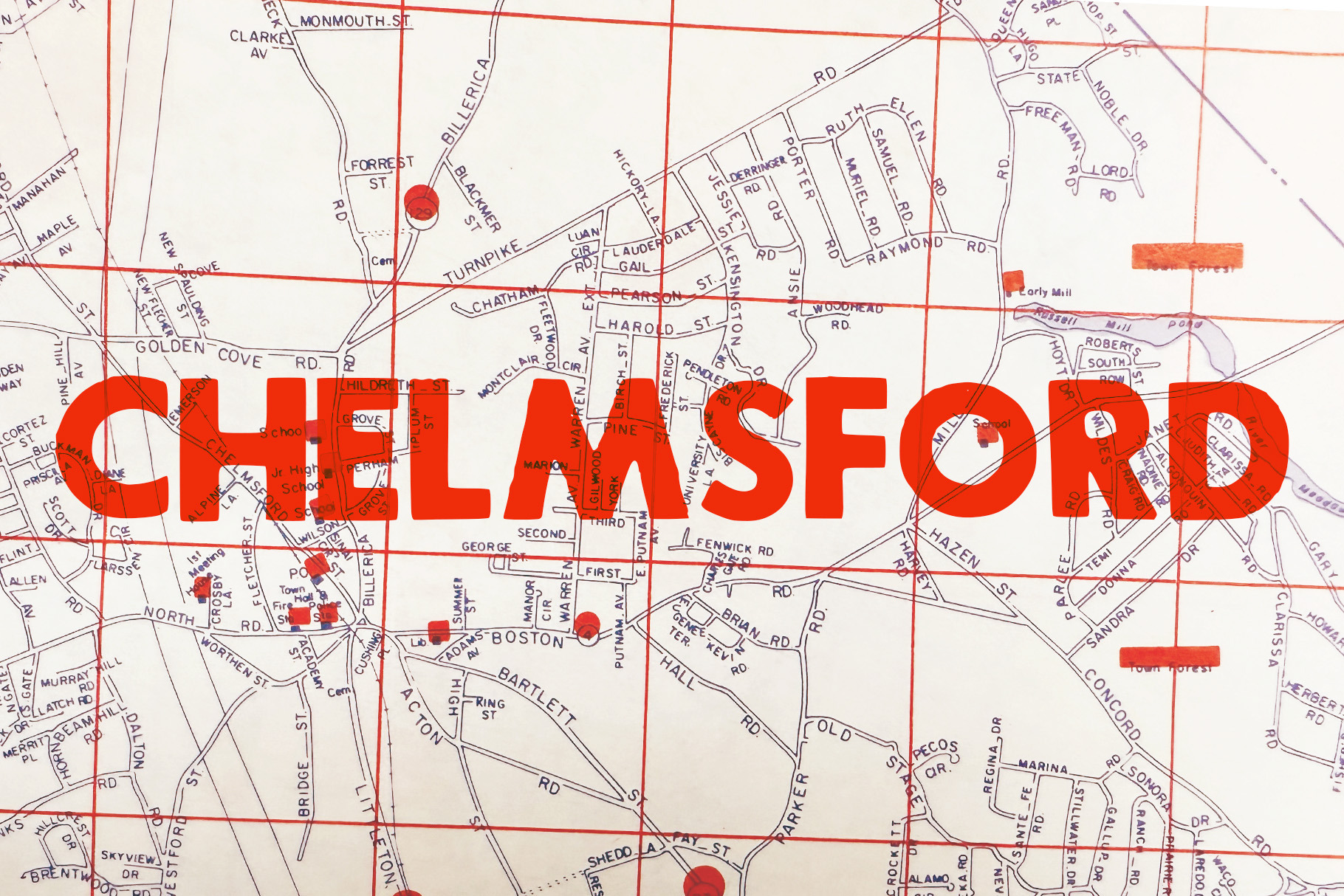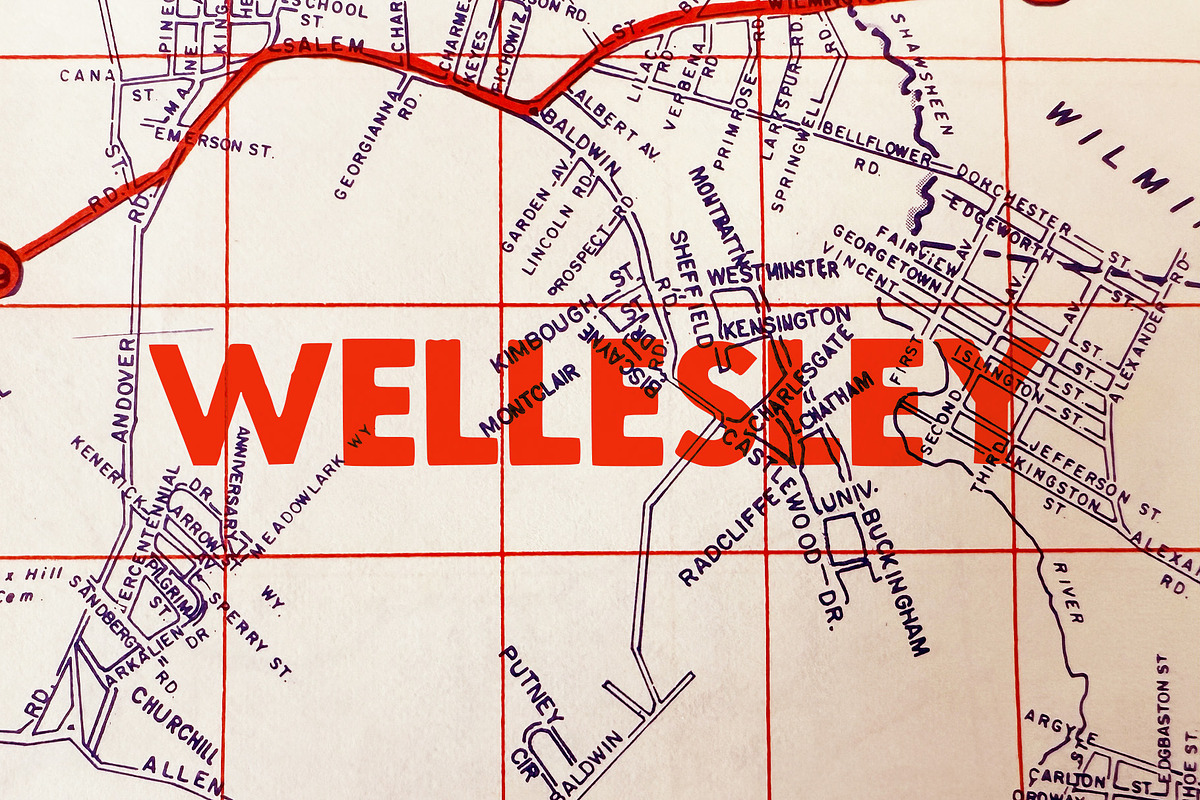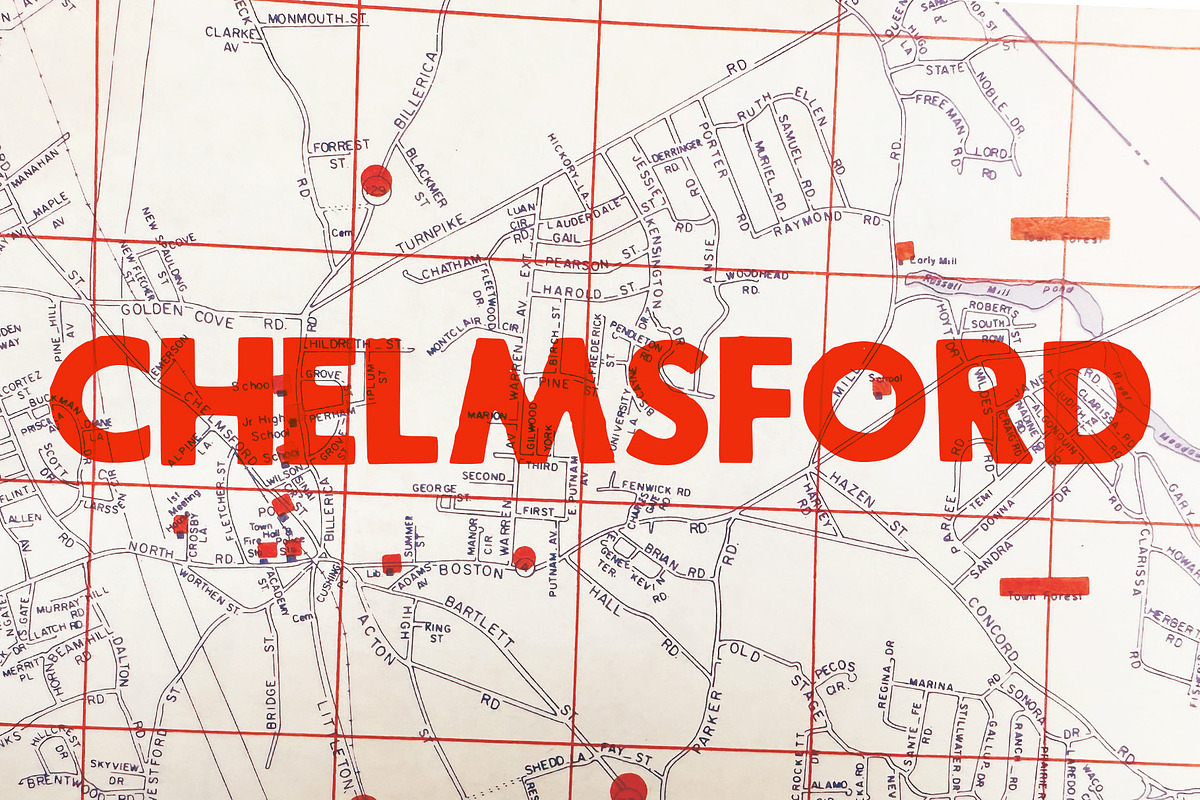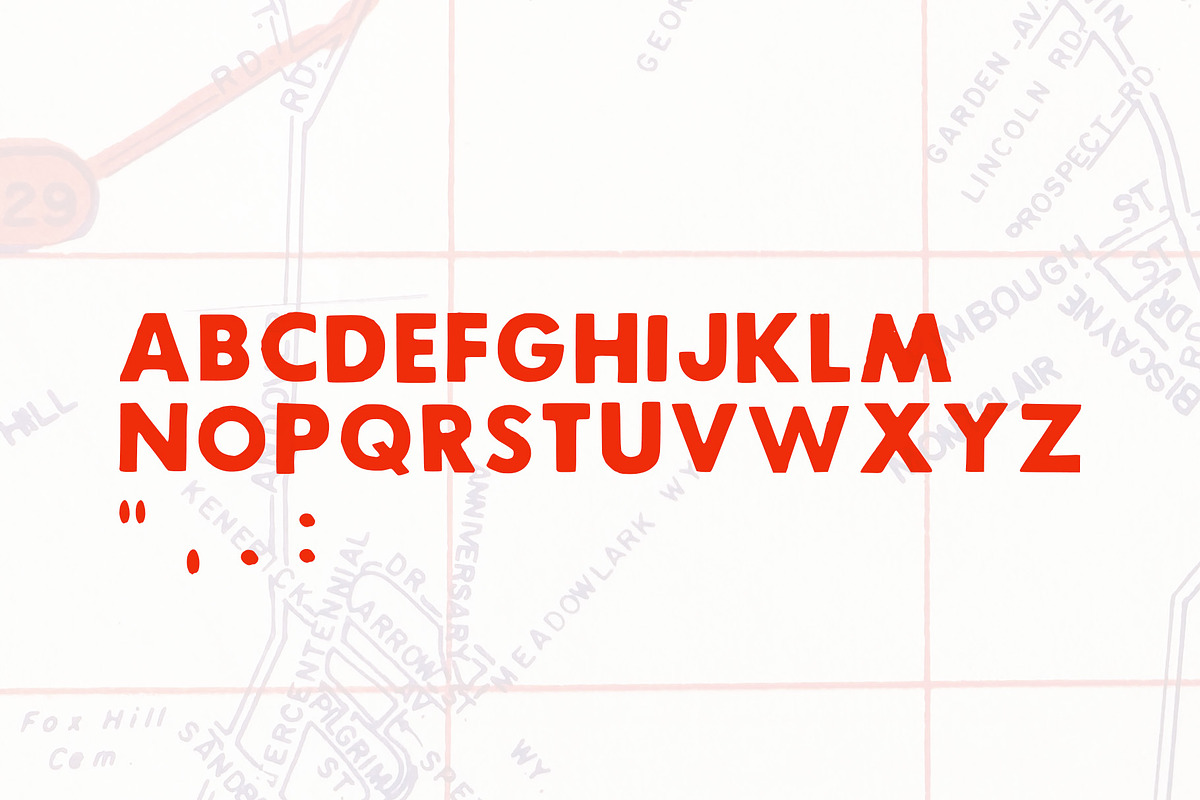
Chelmsford – Vintage Atlas Font
Bold. Geometric. Unapologetically nostalgic.
Chelmsford is a heavyweight display font inspired by the cartographic charm of mid-century road atlases and town plans. With its strong all-caps structure and confident lines, this typeface carries the unmistakable utility of old-school maps while offering a fresh edge for contemporary use.
Each letter is meticulously crafted to echo the legacy of analog printing. Think roadside diners, gas station maps, and the golden age of American travel. Use Chelmsford when you want your design to stand out like a town name on a map.
- All caps character set
- Numerals & basic punctuation
- Clean lines for both print and digital use
- Retro-inspired with a modern bui